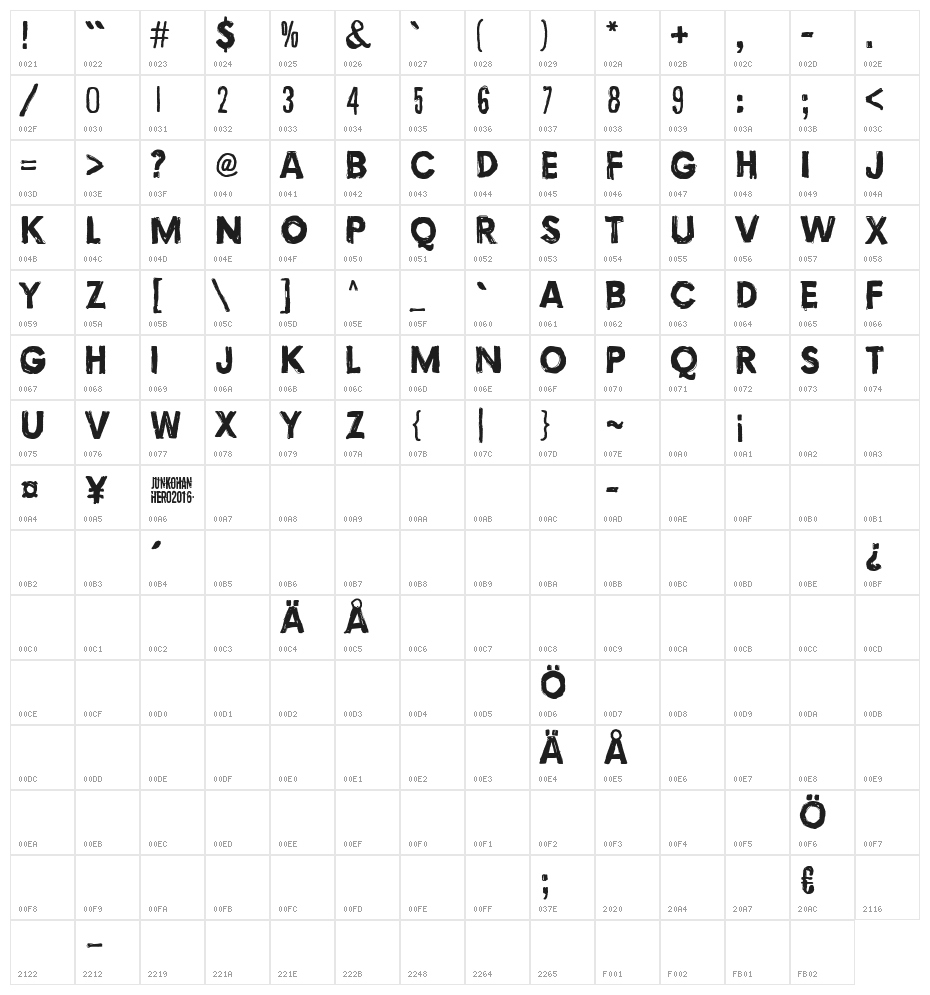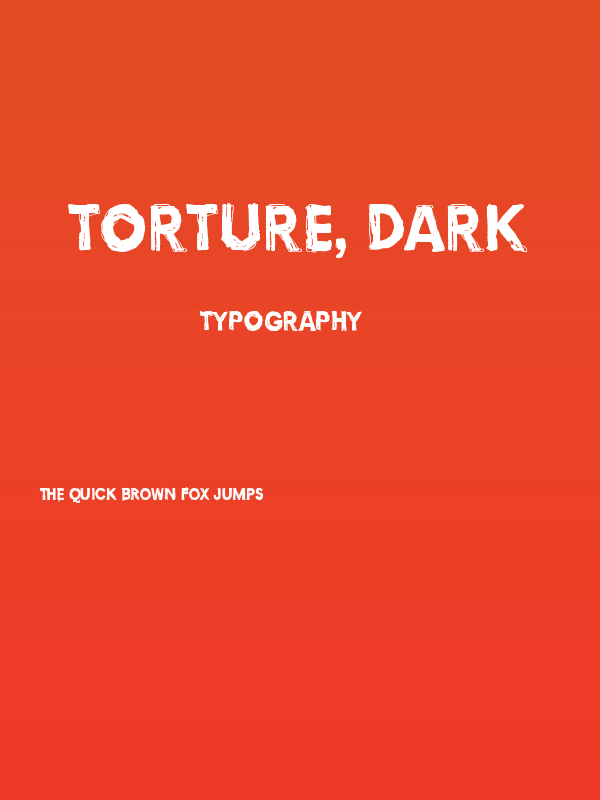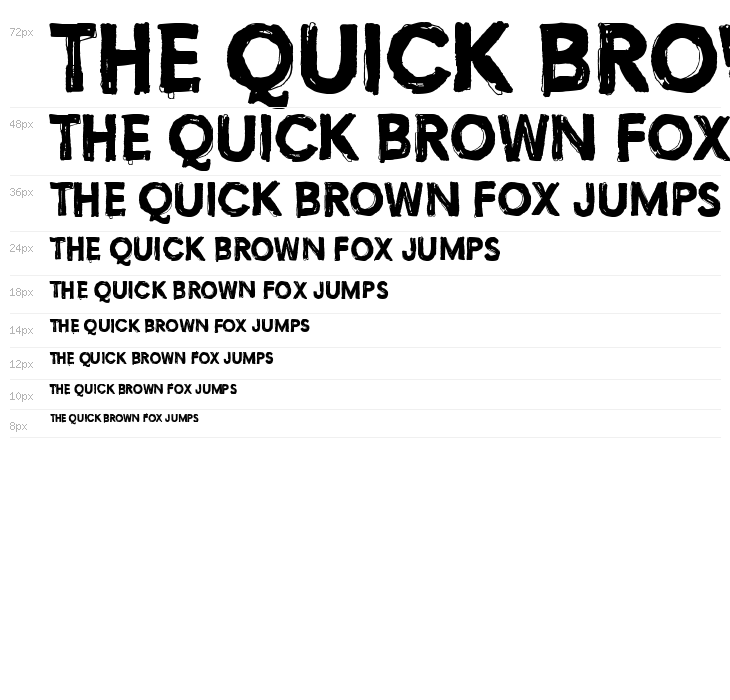
Torture, Dark Font
Torture, Dark Description
This font features a rugged, distressed appearance, reminiscent of hand-painted or stamped lettering. The characters have an uneven texture, giving them a raw and edgy feel. The uppercase and lowercase letters maintain a consistent height, with bold strokes that vary in thickness, adding to the font's dynamic and energetic style. The numerals and special characters follow the same distressed aesthetic, making them suitable for designs that require a bold statement. This font is perfect for projects that aim to convey a sense of rebellion, creativity, or a gritty, urban vibe.
| Proposed Projects | Ideal for posters, album covers, streetwear branding, and edgy graphic designs. |